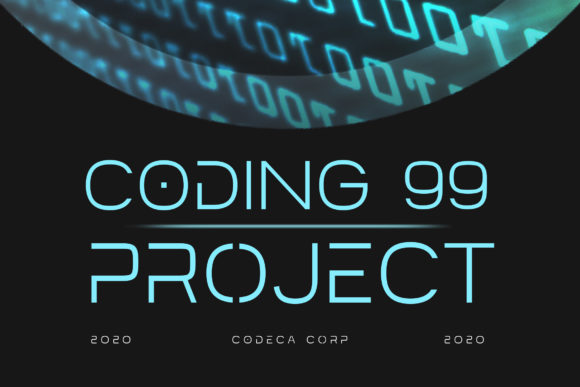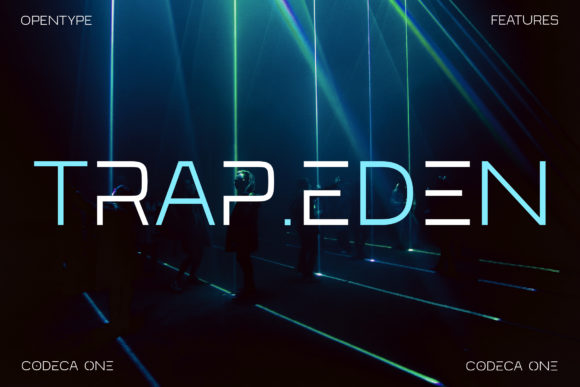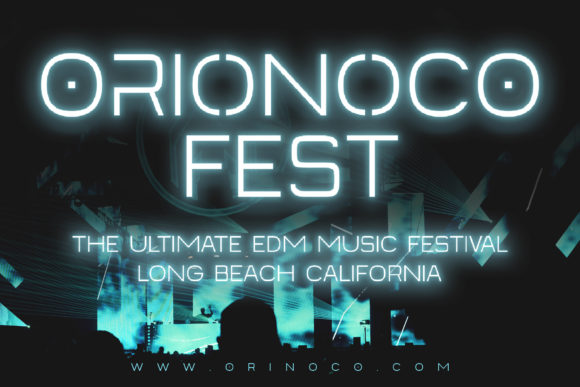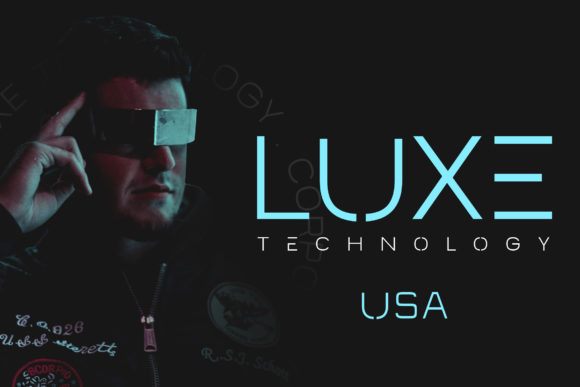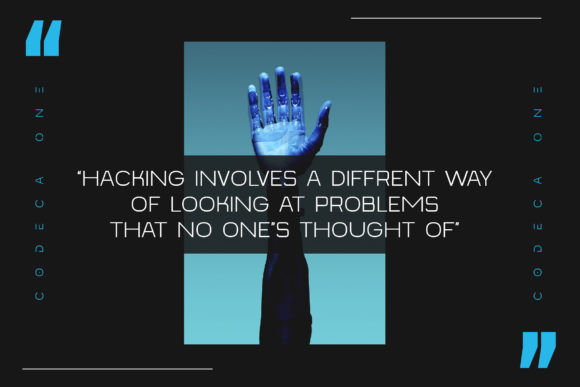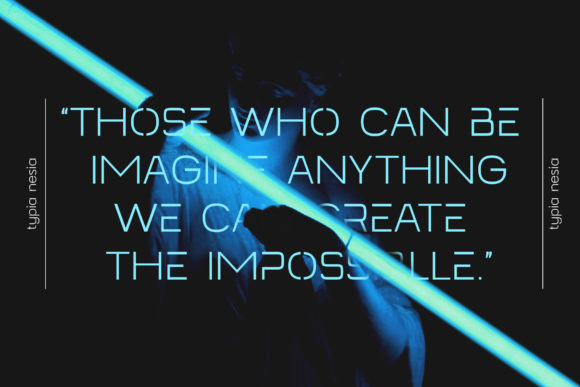
Unlock Your Creativity with Codeca One Font
Have you ever been working on a design project and suddenly, a burst of inspiration hits you? Maybe it’s the perfect color palette, or a unique typography combination that makes your concept truly pop. For designers, those ‘aha’ moments are what drive our passion and creativity. And, what if I told you there’s a font that can unlock even more of those moments?
Meet Codeca One Font, a futuristic display font that celebrates abstract shapes in all their eclectic beauty. This font is designed to add an extra layer of excitement to your creative ideas, making them stand out in a crowded digital landscape. Whether you’re working on a futuristic sci-fi project or a bold, avant-garde campaign, Codeca One Font is the perfect addition to your design toolkit.
Codeca One Font Features
- Multi-language support for Latin, Cyrillic, and Greek scripts
- Unique characteristic: A modern sans-serif design with clean lines and geometric shapes
Designer Review: Codeca One Font
I recently had the chance to work with the Codeca One Font, and I must say, it’s a solid addition to any digital designer’s toolkit. Here’s what I think works well:
- ✨ The Codeca One Font has a clean, modern aesthetic that’s perfect for coding and tech-related projects.
- ✨ The font is highly legible, even at small font sizes, making it ideal for use in dense code snippets.
- ✨ The font comes in a variety of weights and styles, giving designers plenty of flexibility when it comes to customizing their projects.
However, there are a few limitations to keep in mind:
- ⚠️ The font may not be as versatile as some other coding fonts on the market, with a relatively limited character set.
- ⚠️ Some users have reported issues with font rendering at certain font sizes, which can be frustrating for designers who need to work with precise typography.
Overall, I think the Codeca One Font is a solid choice for designers who work primarily with coding and tech-related projects. While it may have some limitations, its clean aesthetic and high legibility make it a great addition to any design toolkit.
Tips for Getting the Most Out of Codeca One Font
Here are some tips for getting the most out of Codeca One Font:
- Use Codeca One Font for headings and titles to create a clean and modern look.
- Experiment with different font sizes and styles to create visual interest.
- Pair Codeca One Font with other fonts to create a unique and stylish typography.